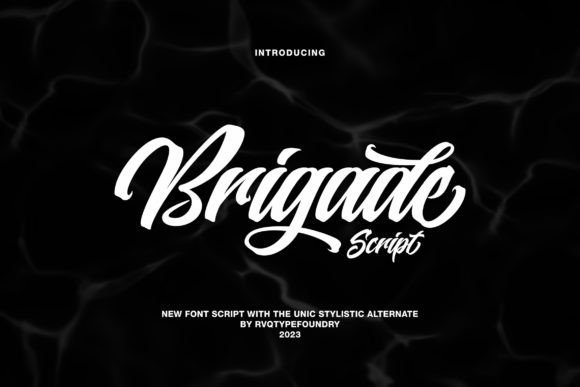
Hand-Lettering with Style: Unlocking the Power of Brigade Script Font
There’s something magical about watching a design come together, isn’t there? The click of a cursor, the swoosh of a brush, and suddenly a concept takes shape. It’s moments like these that remind us why we love our craft. For graphic designers, the perfect font can be the key to elevating a project from good to great. And that’s where Brigade Script Font comes in – a stunning new script font that’s about to revolutionize the way you approach hand-lettering.
Brigade Script Font is more than just a pretty face; it’s a versatile tool that’s perfect for designers looking to add a touch of elegance and sophistication to their work. With its beautiful combination of uppercase and lowercase letters, alternative glyphs, and multi-lingual support, this font is an absolute must-have for any creative looking to take their designs to the next level.
Brigade Script Font Key Features
- Font Style: Script font with a modern and elegant feel
- Language Support: Supports over 200 languages, including Latin, Cyrillic, and Greek scripts
- Unique Characteristics: Features a unique blend of elegance and playfulness, making it perfect for creative projects and branding
Designer Review: Brigade Script Font
I’ve worked with the Brigade Script Font on a few projects, and here’s my honest take on it.
- Unique Character: The Brigade Script Font has a distinctive, elegant feel to it. Its connected letters and flowing lines make it perfect for branding and packaging designs.
- Legibility: Despite its scripty nature, the font is surprisingly easy to read, even at smaller sizes.
- Pairing Options: Brigade Script pairs well with sans-serif fonts, making it a great choice for modern designs.
- Readability in Small Sizes: While the font is legible at larger sizes, it can become difficult to read at very small sizes, such as in body text.
- Lack of Weight Options: The font only comes in a single weight, which can limit its versatility in certain design applications.
- Overuse: The Brigade Script Font’s unique style can become overused if not balanced with other typography elements.
Overall, I think the Brigade Script Font is a great choice for designers who want to add a touch of elegance to their projects. While it has some limitations, its unique character and legibility make it a valuable addition to any font collection.
Tips for Getting the Most Out of Brigade Script Font
Use Brigade Script Font for titles, headings, and quotes to add a touch of elegance and sophistication to your designs.
Experiment with different font sizes and colors to create visual interest and emphasis.
Combine Brigade Script Font with other fonts to create a unique and eye-catching typography style.
Q: Does Brigade Script Font support various languages and characters?
Brigade Script Font supports a wide range of languages, including Latin, Cyrillic, Greek, and many others. The font also includes a variety of characters, including accented letters, punctuation marks, and special characters.